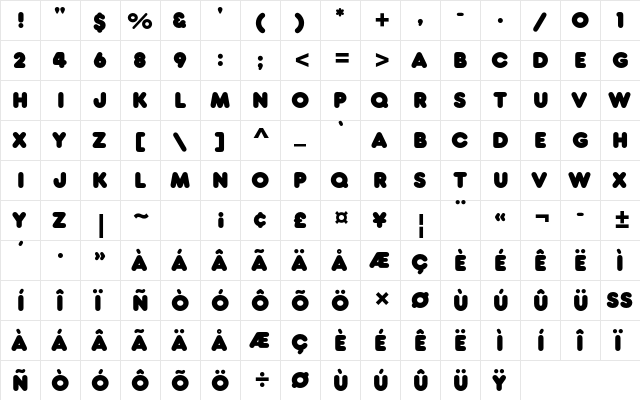
Frankfurter Std Regular
| Designer | Bob Newman |
Design Context for Frankfurter Std Typeface
Frankfurter Std is a composed and adaptable typeface that performs quietly and consistently across a wide range of design contexts.